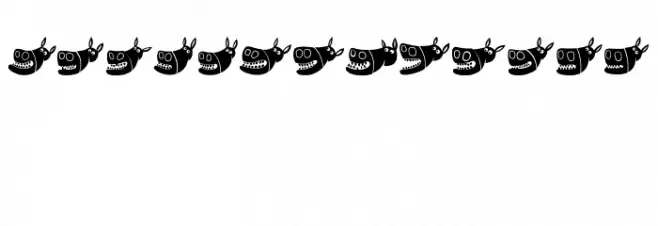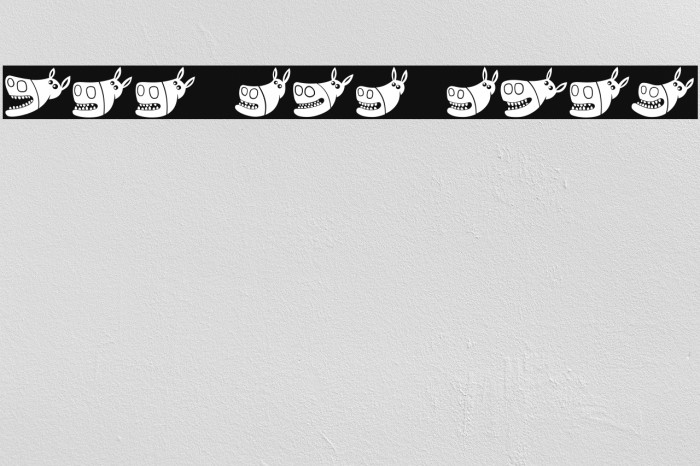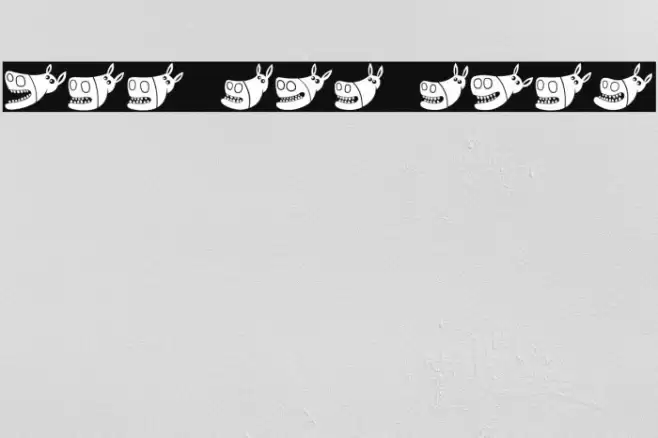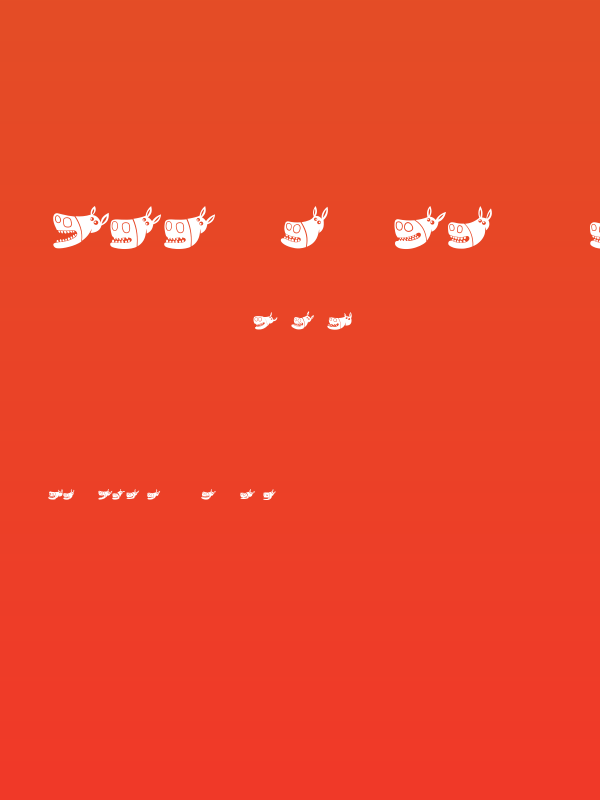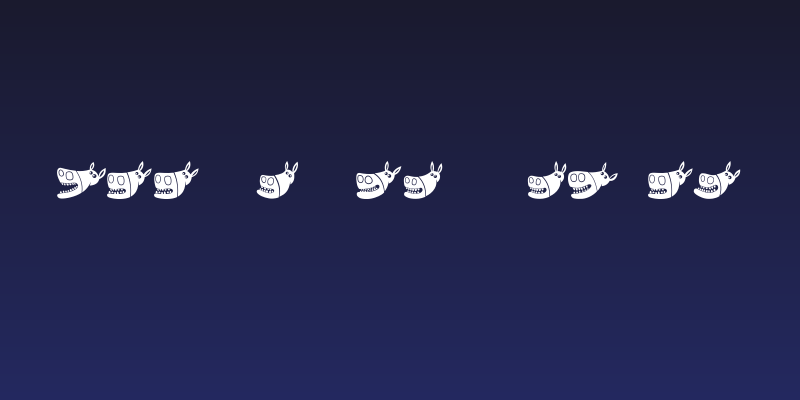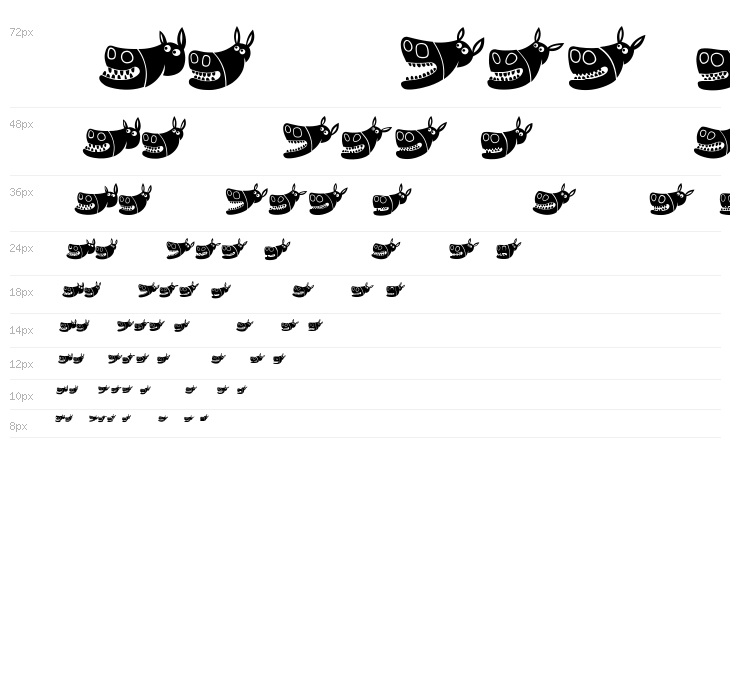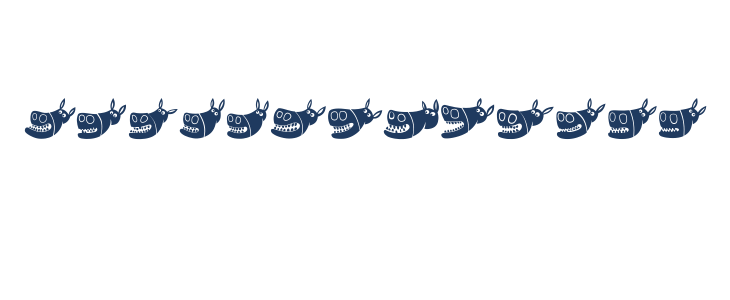
Silly Donkey Regular Font
Silly Donkey Regular Description
This font features a whimsical and playful design, characterized by cartoonish donkey heads replacing traditional alphanumeric characters. Each character is represented by a unique donkey face, adding a humorous and lighthearted touch. The design is bold and eye-catching, making it suitable for creative and informal projects. The font lacks traditional letterforms, focusing instead on decorative elements that convey a sense of fun and creativity.
| Overall Style | Whimsical |
| Use Case | Logos, Posters, Decorative Text |
| Proposed Projects | Ideal for children's books, playful posters, party invitations, and novelty items. |